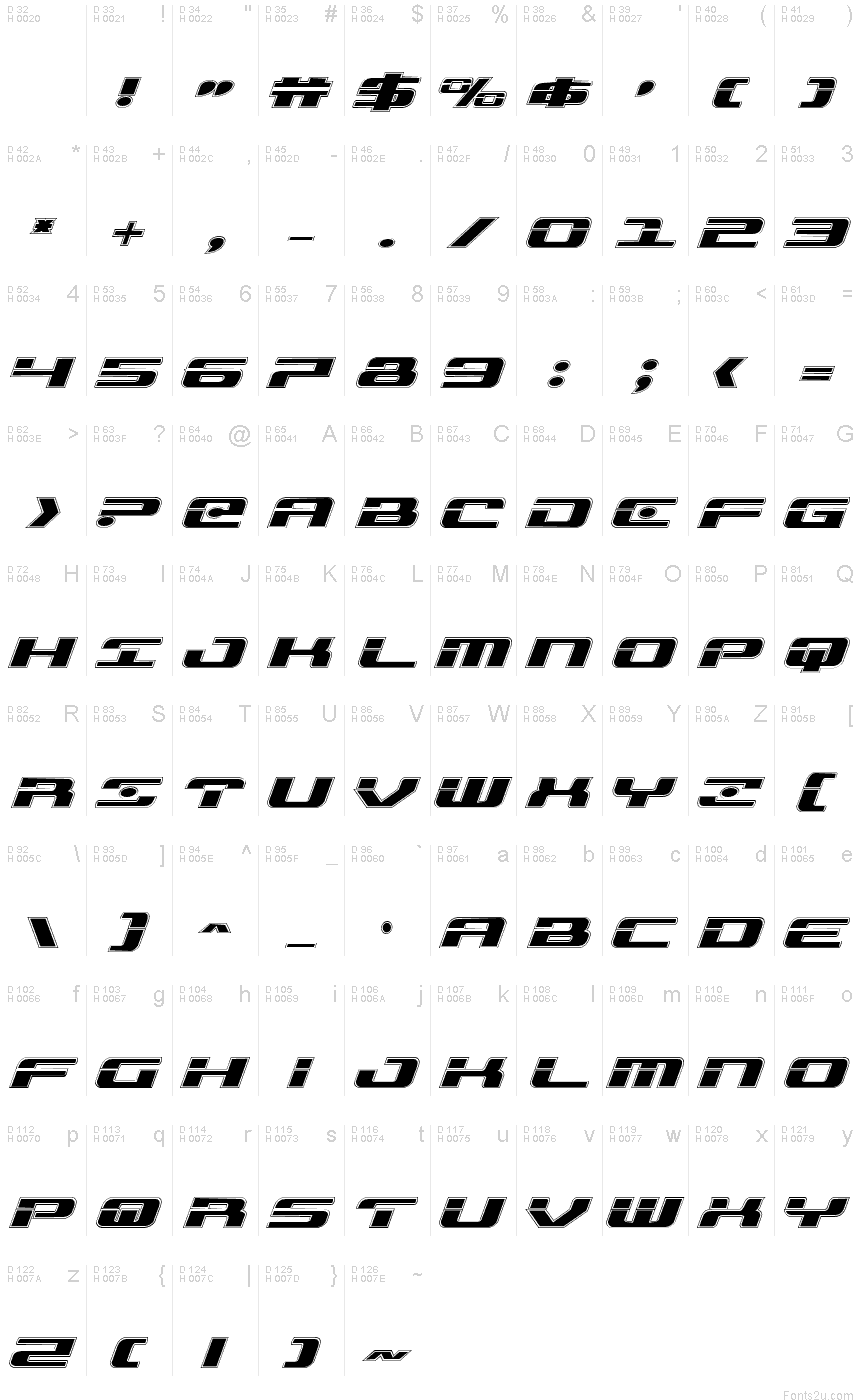
Troopers Academy Expanded Italic by Daniel Zadorozny of Iconian Fonts is a free outlined techno display font with a low, fast silhouette. Its broad slanted capitals use sweeping curves and clipped joins, with tight cut-in details breaking up the dark strokes. The result strongly recalls racing graphics and spacecraft markings.
Motorsport branding is its clearest use, especially for team logos, vehicle graphics, and event posters. It gives racing brands a coherent product identity.
Troopers Academy Expanded Italic